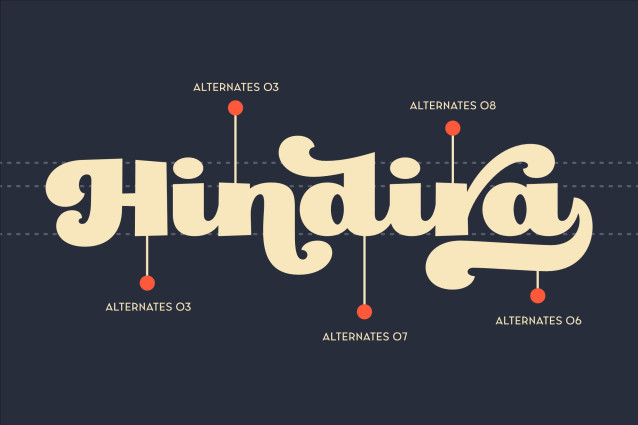
Hindira Font
Hindira Font – a retro script font inspired by 90s posters and design vibes! With chunky, playful, and full-of-character letterforms, Hindira is here to make your projects stand out and shine.